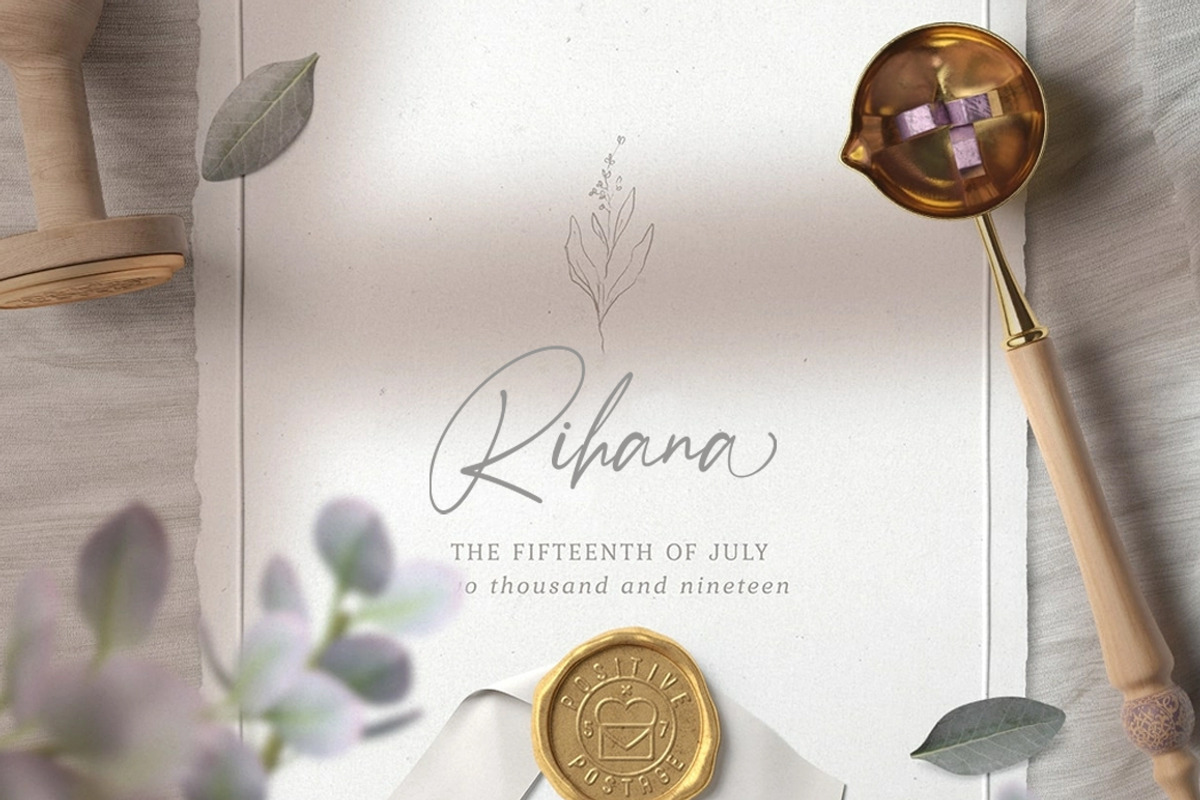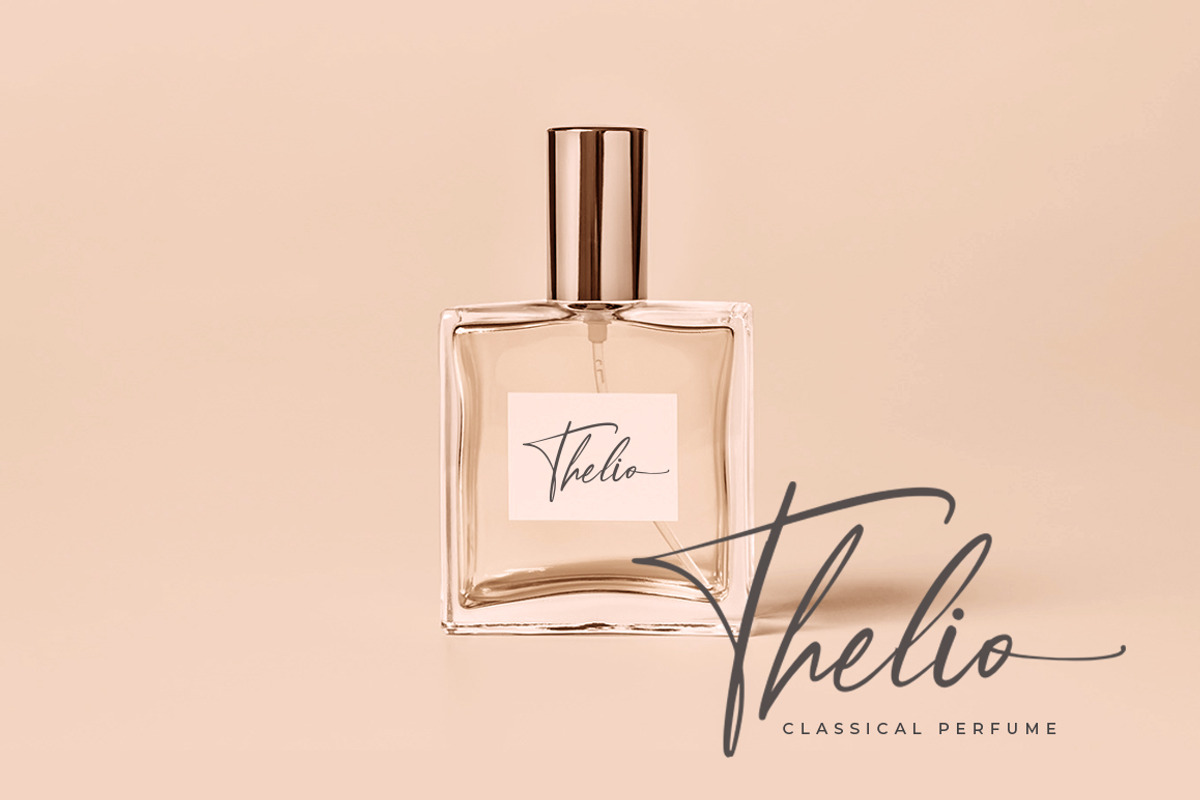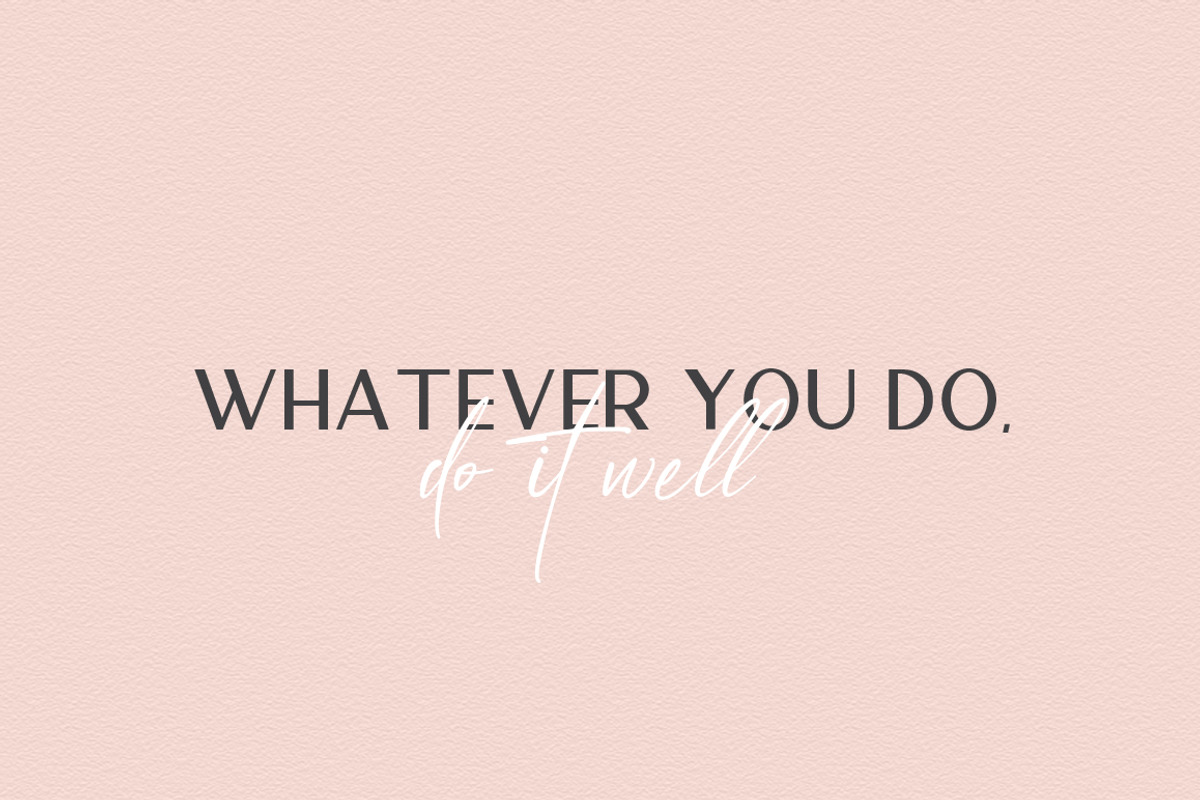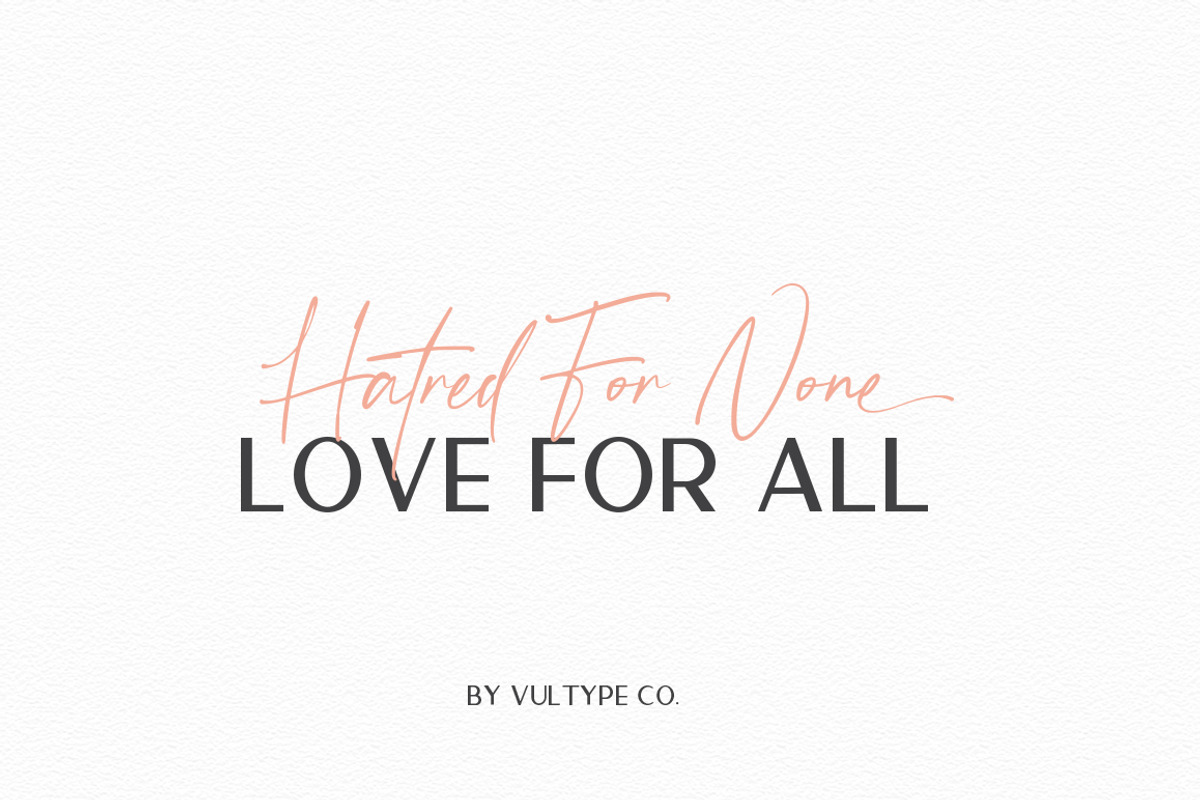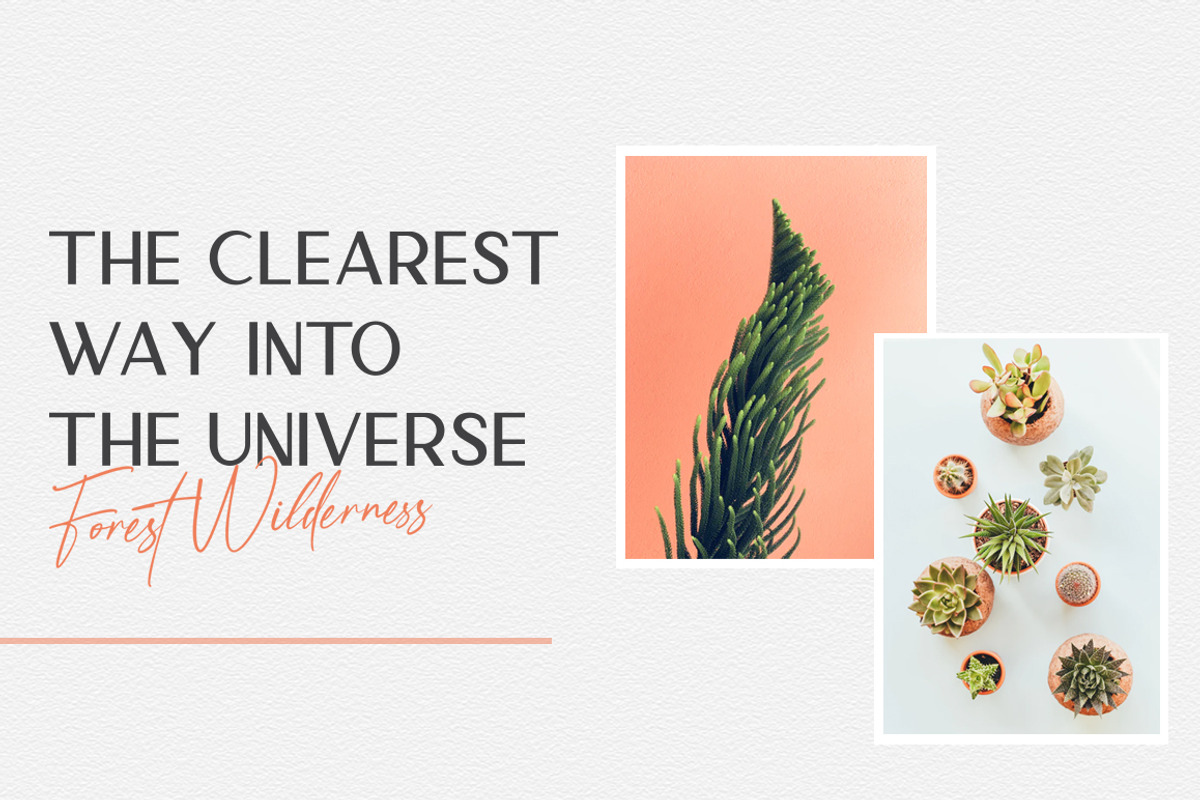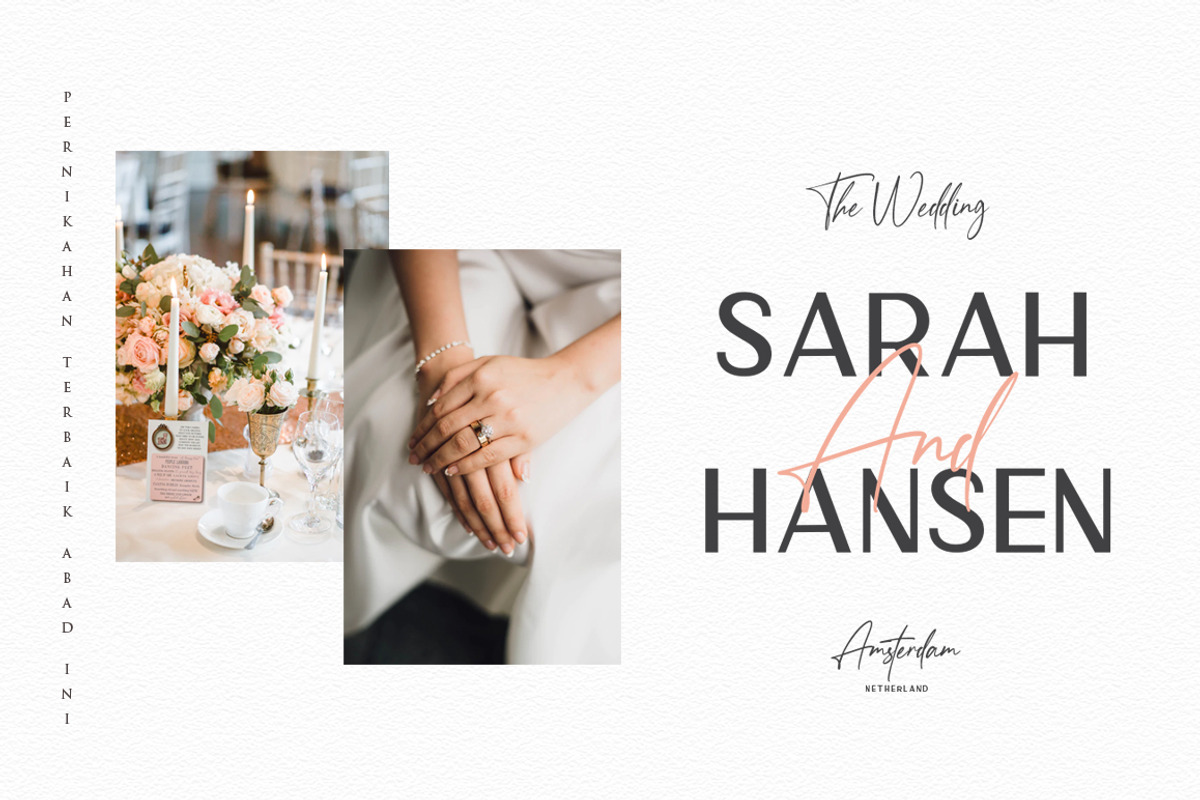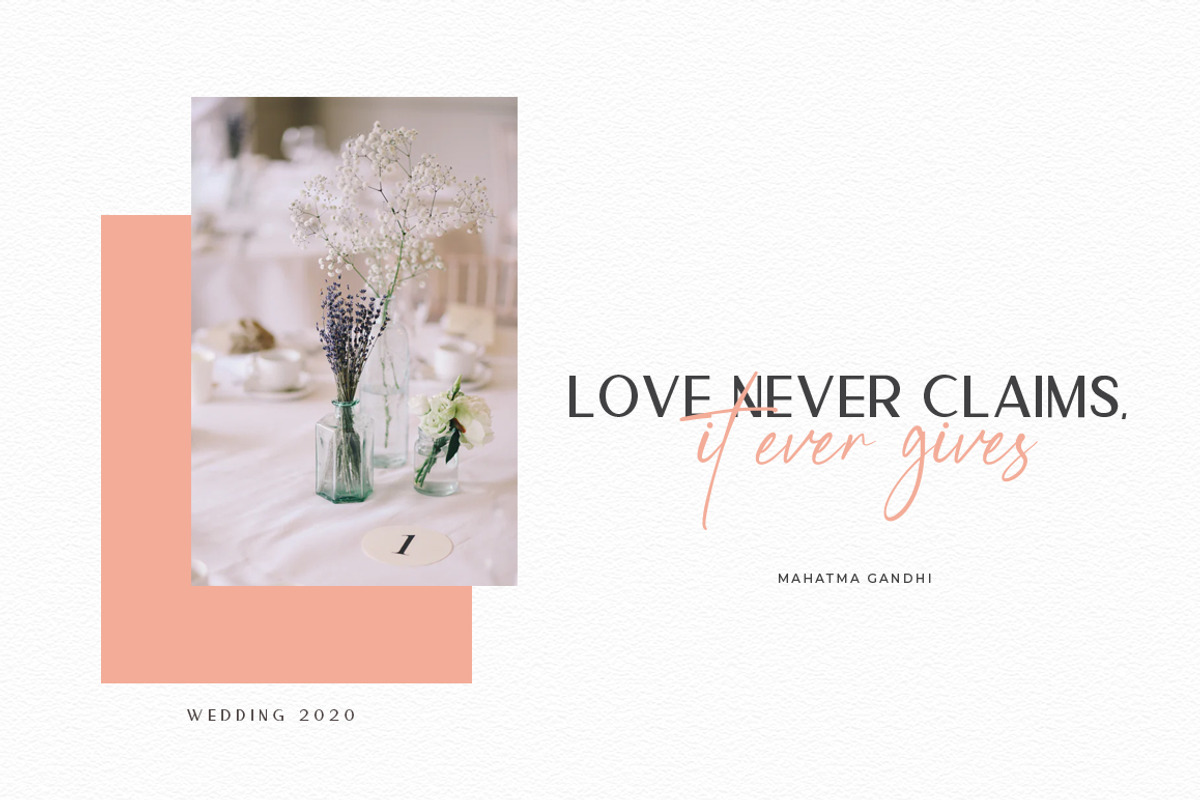
Anamortee // Modern Calligraphy Font
Anamortee is lovely script and sans with beautiful ligature and alternate font.
It easily cooperating together For Magazine, Movies, or Book Titles. For Photography, Wedding Invitation, Restaurant Menu or T-shirt Design. For Flyers, Banner Ads, web and printing. From Food and Fashion to a Cosmetics product
Upper + Lowercase Letters
Numbers + Punctuation
- Upper + Lowercase Letters
- Numbers + Punctuation
- Ligature Feature
- OpenType features
- Multilingual support
- Anamortee Sans Regular
- Anamortee Regular
Anamortee // Modern Calligraphy Font by Vultype Co. fits naturally into Branding, posters, packaging, typography.